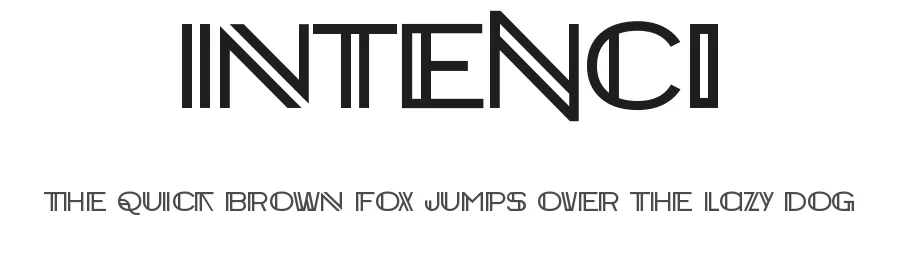
About Brunst Caps Font
Brunst Caps is a decorative font designed by TarmSaft Font Factory. It includes 203 glyphs, a regular weight, TTF (TrueType) format, and 211 languages. Brunst Caps is free to download; check the license details on this page before commercial use. Decorative fonts like Brunst Caps work best for logos, posters, packaging, and standout headlines.
Brunst Caps Font is a decorative font that shines as a display or heading face. Pair it with a clean sans-serif or serif font for body text β the contrast creates a clear hierarchy while the two styles stay balanced and easy to read.
Brunst Caps Font
Brunst Caps Font is a decorative typeface by TarmSaft Font Factory, ideal for logos, invitations, branding, and creative projects.